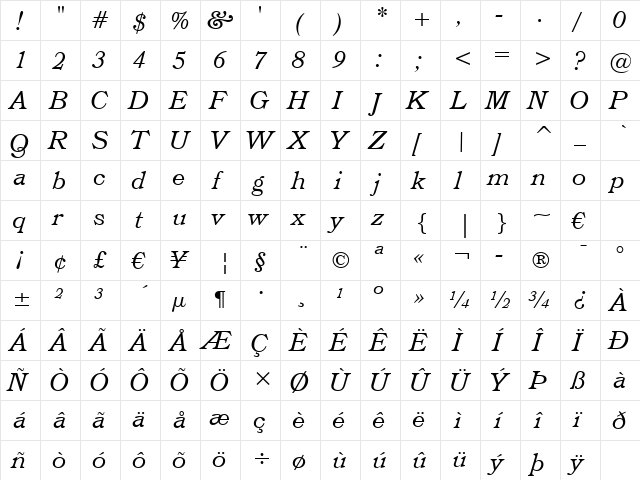
Bookman ItHd BT Italic
Design Context for Bookman ItHd BT Typeface
Bookman ItHd BT takes a measured approach to typography — its balanced proportions and neutral character make it a reliable workhorse for both digital and print work. The slanted form adds forward momentum and visual energy.